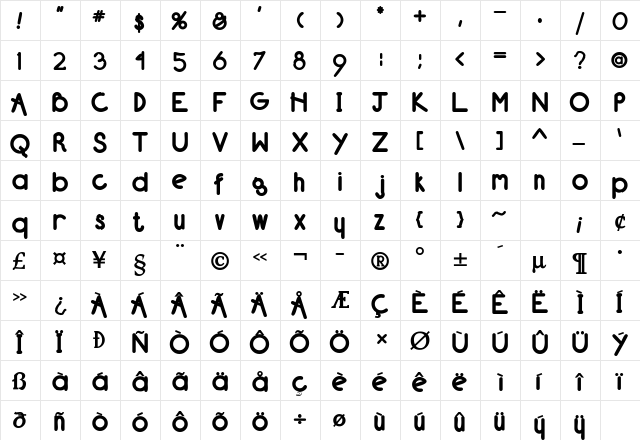
CamroseBlackSSK Bold Font Preview
CamroseBlackSSK Bold
Design Context for CamroseBlackSSK Typeface
CamroseBlackSSK takes a measured approach to typography — its balanced proportions and neutral character make it a reliable workhorse for both digital and print work. The heavy weight commands attention and anchors typographic hierarchies.